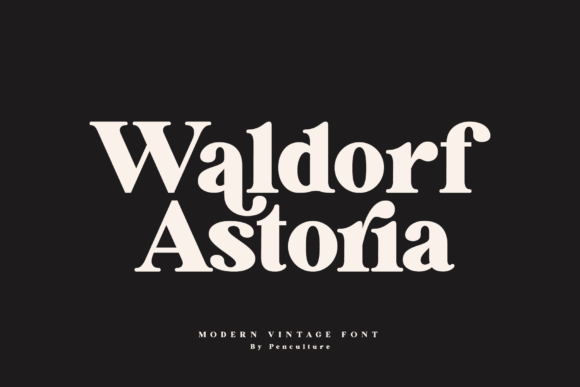
Step into the realm of elegance and sophistication with Waldorf Astoria, a font that radiates charm and grace. This serif masterpiece, meticulously crafted by Pen Culture, is your gateway to creating stunning visual statements that leave a lasting impression.
Waldorf Astoria's timeless beauty stems from its delicate serifs and sweeping curves that effortlessly guide the eye across its characters. Inspired by the grandeur of the iconic hotel, this font captures the essence of opulence and luxury.
Unleash your creative spirit and let Waldorf Astoria elevate your designs to new heights. Its versatility shines through whether you're crafting breathtaking posters, captivating logos, or eye-catching social media graphics. The possibilities are endless.
Picture your creations adorned with this exquisite font. Envision the allure of your posters, the impact of your logos, and the engagement generated by your social media posts. Waldorf Astoria elevates your designs, making them stand out amidst a sea of mediocrity.
This font is more than just a digital tool; it's an extension of your creativity. Its PUA encoding allows you to seamlessly incorporate glyphs and swashes, adding a touch of flair and personality to your designs.
Join the ranks of discerning designers and creatives who recognize the power of Waldorf Astoria. Let its timeless elegance enchant your audience and leave them spellbound. Discover the beauty of classic serif typography and embrace Waldorf Astoria today.